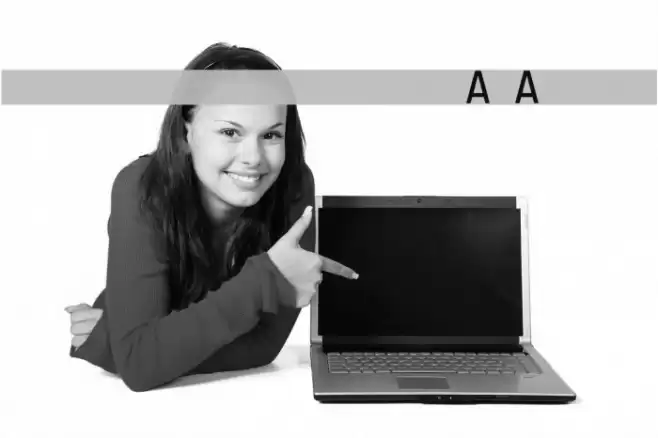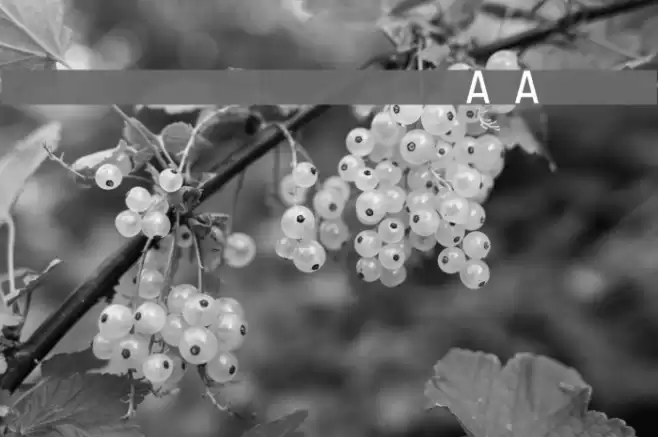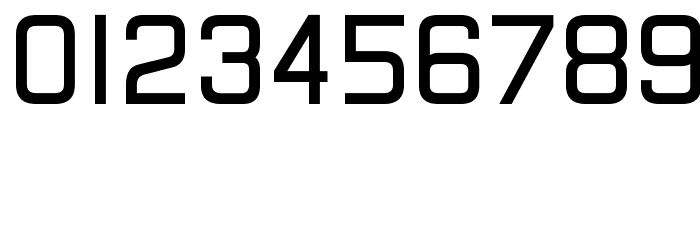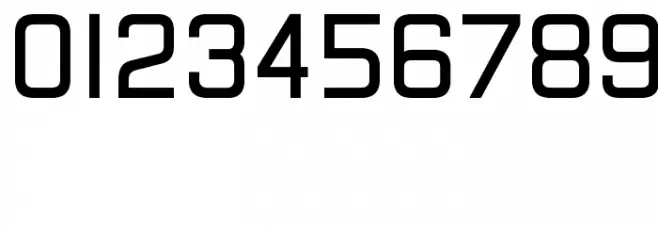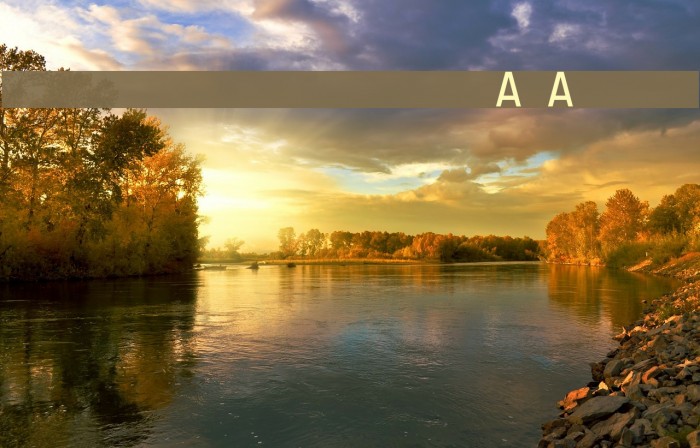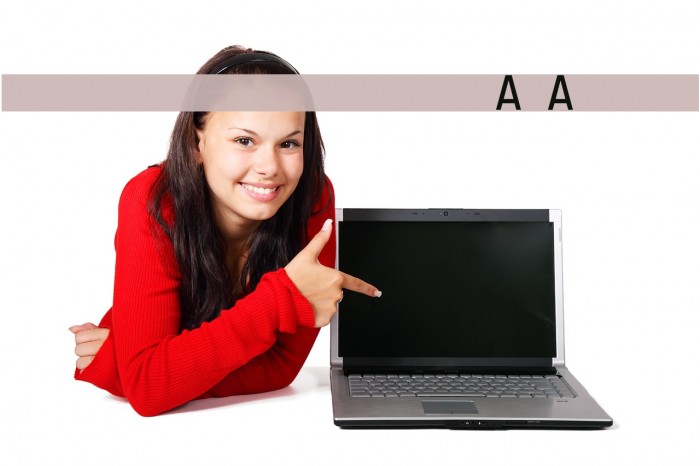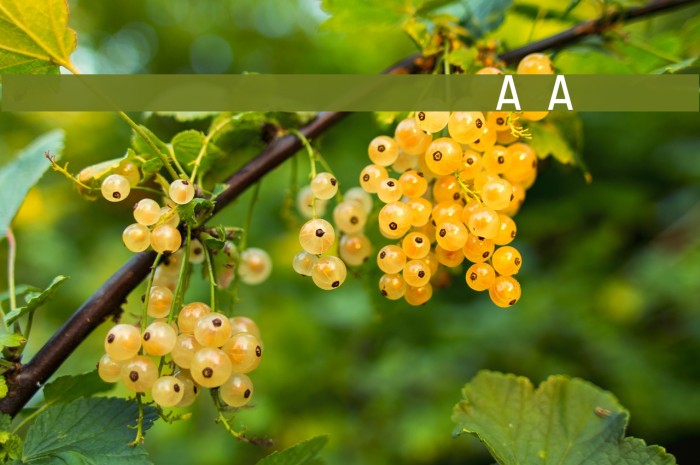
This font features a modern, geometric design with clean lines and a structured appearance. The characters are uniform in width, giving it a monospaced feel, which is ideal for technical and digital applications. The numerals are particularly distinct, with a futuristic aesthetic that enhances readability. The overall style is minimalistic, making it suitable for a variety of uses where clarity and precision are paramount. The font's simplicity and uniformity make it a versatile choice for both print and digital media.
A modern, geometric font with a monospaced feel, ideal for technical applications from Uncategorized fonts.
- Proposed Projects: Ideal for digital interfaces, technical documentation, coding environments, and modern branding projects.
- Use Case: Digital interfaces, Technical documentation, Coding environments